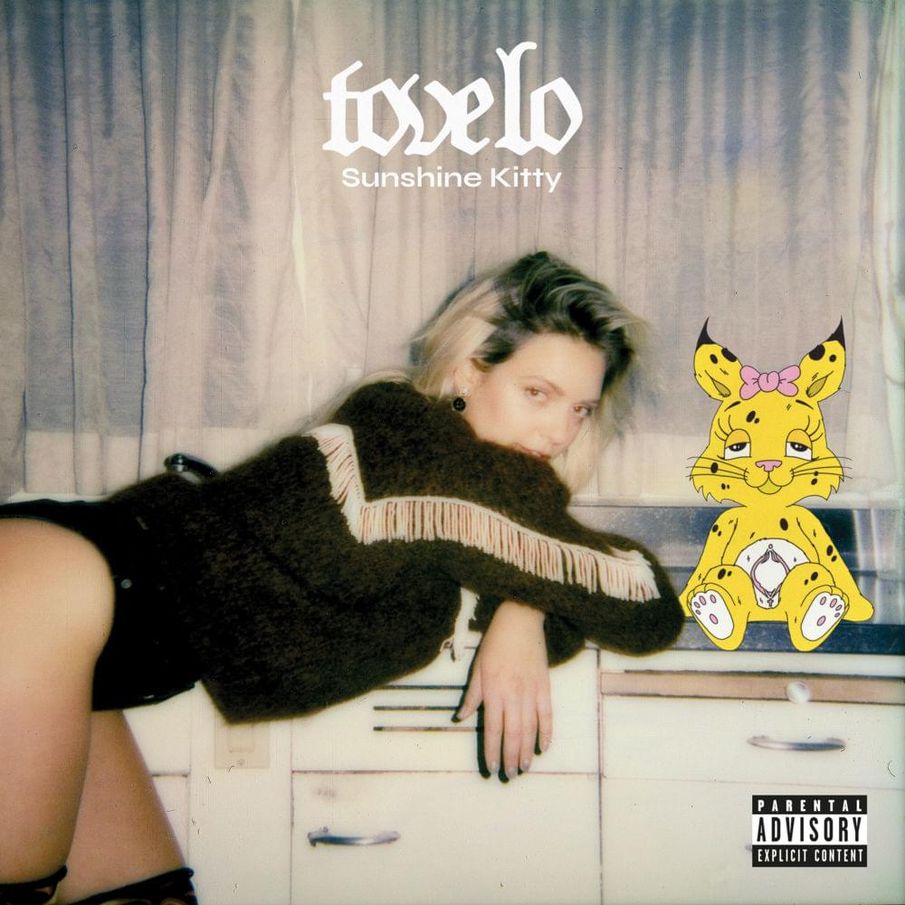
Sunshine Kitty Font
The artist's name uses the Unger Fraktur Fett blackletter font by Ralph Unger, while the album title is displayed in Syne Bold, a sans serif font created by Bonjour Monde and designed by Lucas Descroix and Arman Mohtadji. Syne is available for free download from the fonts Used Section.